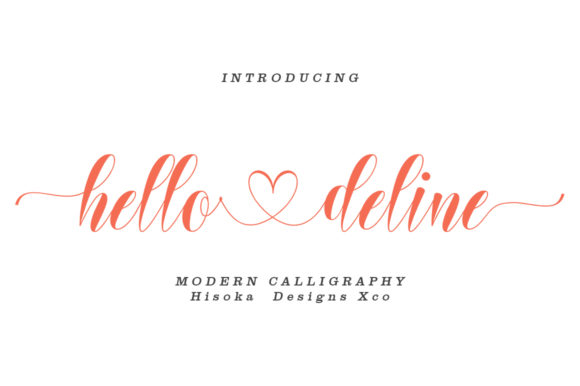
Hello Deline Font: The Ultimate Choice for Elegant and Charming Designs
Hello Deline font is a beautiful, handwritten typeface that has gained popularity among designers and crafters alike. Its elegant and charming appearance makes it perfect for a variety of design projects, including wedding invitations, greeting cards, logos, and more. In this article, we’ll explore the features and benefits of Hello Deline font and why it’s an excellent choice for your next design project.
The Charm of Hello Deline Font
Hello Deline font is a stunning, handwritten typeface that exudes elegance and charm. Its smooth lines, gorgeous glyphs, and varying baseline give it a unique and sophisticated look that’s perfect for designs that require a personal touch. Whether you’re creating wedding invitations, thank you cards, or greeting cards, Hello Deline font is sure to impress.
Key Features of Hello Deline Font
- Varying Baseline: The font features a varying baseline, which gives it a natural, handwritten look that’s perfect for designs that require a personal touch.
- Smooth Lines: Hello Deline font has smooth lines that give it a sophisticated and elegant appearance.
- Gorgeous Glyphs: The font comes with a range of gorgeous glyphs and stunning alternates that you can use to customize your designs.
Perfect for a Variety of Design Projects
Hello Deline font is versatile and can be used for a variety of design projects, including:
- Wedding Invitations: The font’s elegant and charming appearance makes it perfect for wedding invitations, save-the-date cards, and other wedding-related designs.
- Greeting Cards: Hello Deline font is great for creating greeting cards for special occasions, such as birthdays, anniversaries, and holidays.
- Logos: The font’s unique and sophisticated look makes it perfect for logos, branding, and packaging designs.
- Business Cards: Hello Deline font is great for creating business cards, letterheads, and other corporate designs that require a personal touch.
- Quotes and Inspirational Designs: The font’s elegant appearance makes it perfect for creating inspirational quotes, posters, and other designs that require a touch of elegance.
Why Choose Hello Deline Font?
There are many reasons why you should choose Hello Deline font for your next design project. Here are a few:
- Elegant and Charming: The font’s elegant and charming appearance makes it perfect for designs that require a personal touch.
- Versatile: Hello Deline font is versatile and can be used for a variety of design projects, from wedding invitations to logos and business cards.
- High-Quality: Hello Deline font is a high-quality typeface that’s designed to deliver exceptional results.
Tips for Using Hello Deline Font
Here are a few tips for using Hello Deline font:
- Use it for Headings: Hello Deline font is perfect for headings, titles, and other design elements that require a touch of elegance.
- Experiment with Glyphs and Swashes: The font comes with a range of glyphs and swashes that you can use to customize your designs.
- Pair it with Other Fonts: Hello Deline font can be paired with other fonts to create a unique and sophisticated look.
- Use it for Digital and Print Designs: The font is suitable for both digital and print designs, making it perfect for a variety of applications.
Hello Deline font is a beautiful, handwritten typeface that’s perfect for designs that require a personal touch. Its elegant and charming appearance makes it suitable for a variety of design projects, from wedding invitations to logos and business cards. With its PUA encoding, varying baseline, smooth lines, gorgeous glyphs, and stunning alternates, Hello Deline font is an excellent choice for designers and crafters alike.